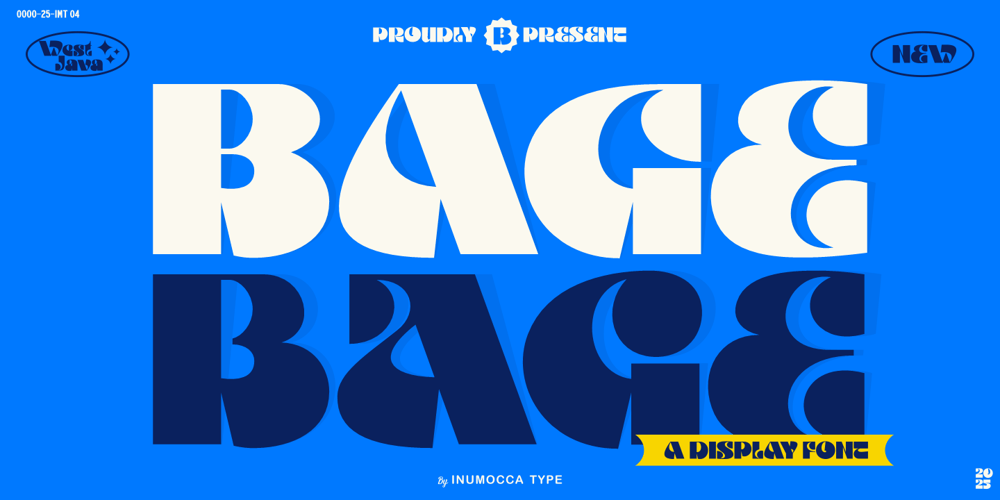
Bage Font Family was designed by Inu Mocca and published by Inumocca. Bage contains 1 styles and family package options. Bage is A Display Font, Retro Bold a unique vibe its perpect for short headlines, short text and Logos,Bage creates a unique rhythm in any body of text,Great for covering your Project where a sense of fun, delight and visual appeal is essential.like Branding, Logos, packaging Design, Poster,Lettering, and more your project design.- Unique glyphs- Multilingual Characters- UPPERCASE- Lowercase- Numeric- Symbol- Punctuation Character- PUA encoded- Stylistic Alternates (ss01)inumocca type